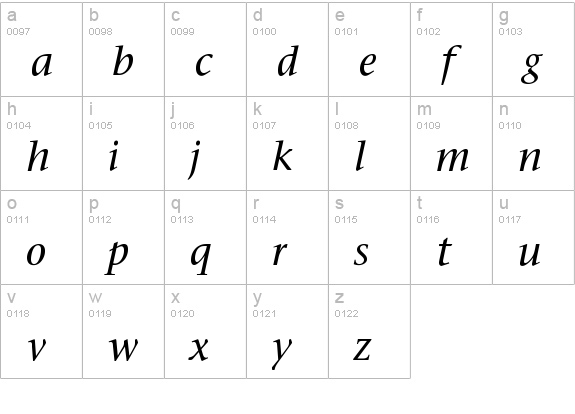
Stone Serif Medium Italic Font Details
Stone Serif Medium Italic is a balanced, medium-weight, italic variant in the Stone typeface family \xE2\x80\x94 well suited to sub-headlines, navigation, and balanced editorial work.
Stone Serif Medium Italic font exudes elegance and sophistication with its sleek and timeless design. The italic style adds a touch of flair, making it perfect for conveying a sense of creativity and modernity. This versatile font is ideal for a wide range of design projects, from branding to editorial layouts. What makes Stone Serif Medium Italic font even more appealing is that it is available for free download at FontsMarket.com. This means that you can enhance your projects with this high-quality font without any additional cost. Don't miss out on the opportunity to elevate your designs with the effortlessly stylish Stone Serif Medium Italic font.